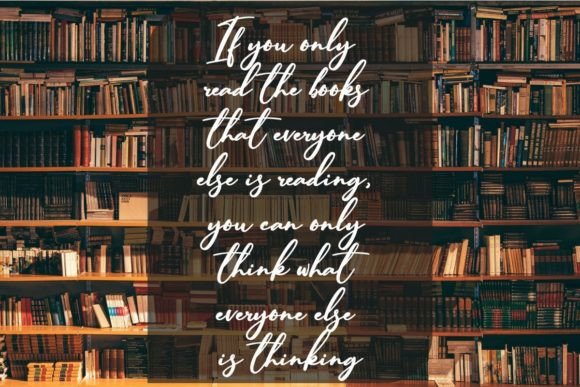
Bartholomew Font
Download Bartholomew Font for free! Created by Arief Indra Pratama and published by Shaya Kern, this script font family is perfect for adding a unique touch to your designs.
Step into the world of enchanting typography with Bartholomew, a captivating script font that will add a touch of artistry to your creative endeavors!
Immerse yourself in the beauty of handwritten elegance, where each letter dances and flows effortlessly like a gentle breeze. Crafted by the skilled hands of Arief Indra Pratama, Bartholomew is the perfect companion for your imaginative expressions.
Unleash the limitless possibilities that await you with Bartholomew. Its versatility knows no bounds, from adorning the walls of your home with captivating displays to gracing the envelopes of your cherished wedding invitations. Capture the essence of love and romance with ease, or command attention on social media with logos that exude style and sophistication.
Let your imagination soar as you design alluring packaging that will make your products stand out from the crowd. Enhance your designs with a touch of elegance and professionalism, leaving a lasting impression on all who behold them. Bartholomew is the secret ingredient that will transform your labels, photography, and watermarks into works of art.
In the realm of invitations and stationery, Bartholomew weaves its magic, creating a symphony of beauty that will enchant your guests from the moment they receive it. Its timeless appeal adds an air of sophistication to any occasion, making your celebrations truly memorable.
So, why wait? Embark on a creative journey with Bartholomew today and elevate your designs to new heights of elegance and style. Let your words and creations come to life with the enchantment of this captivating script font.